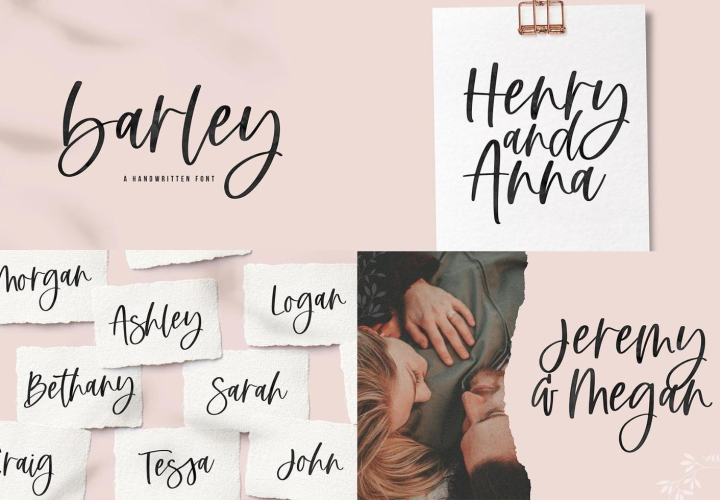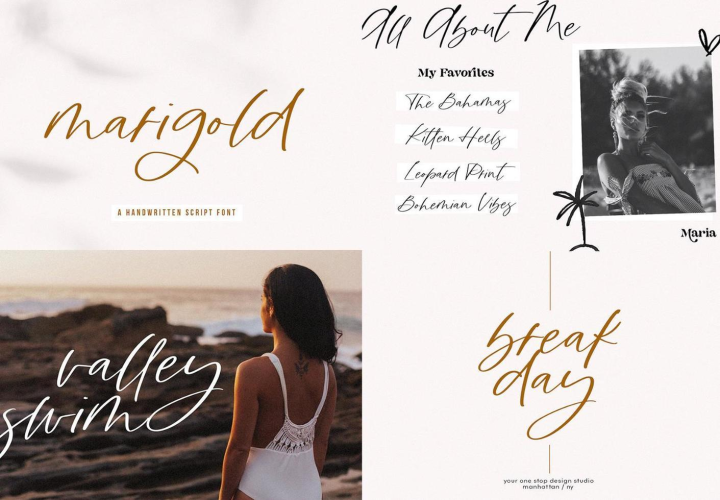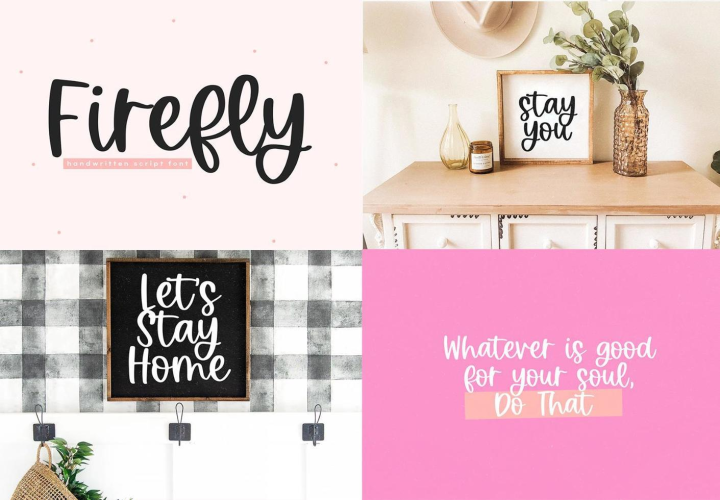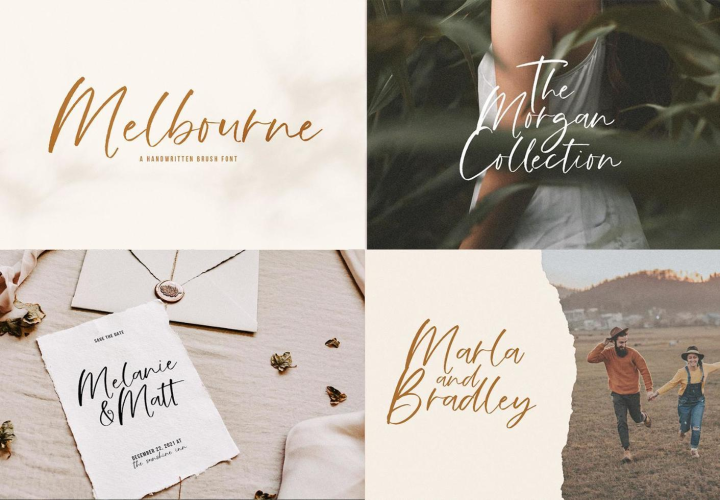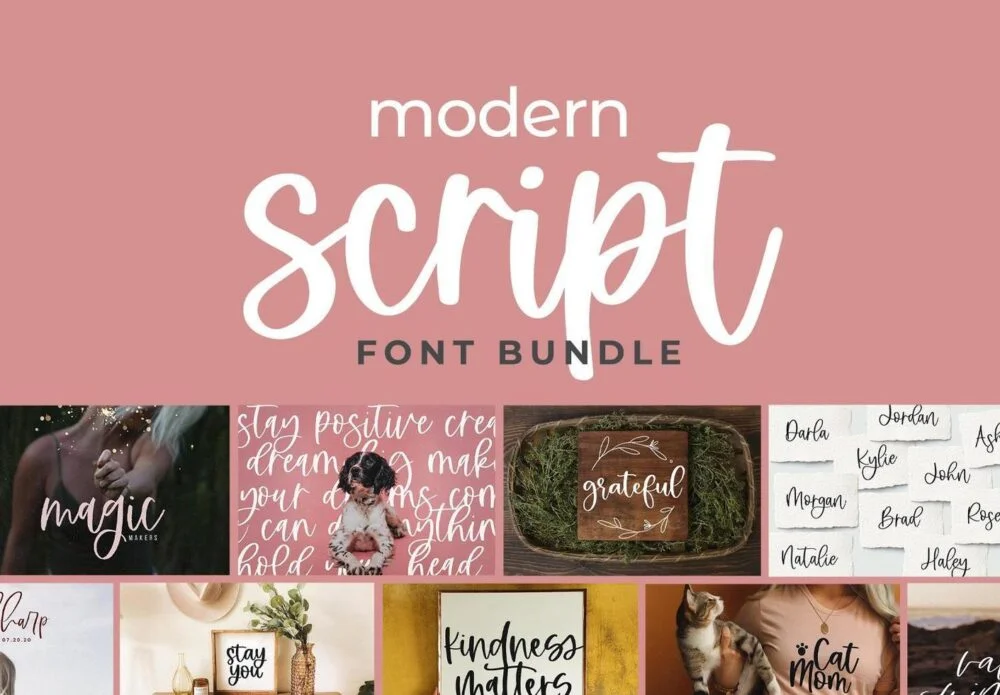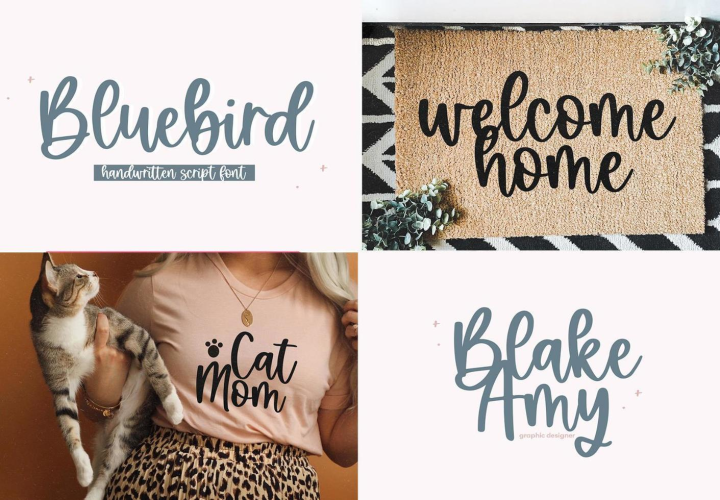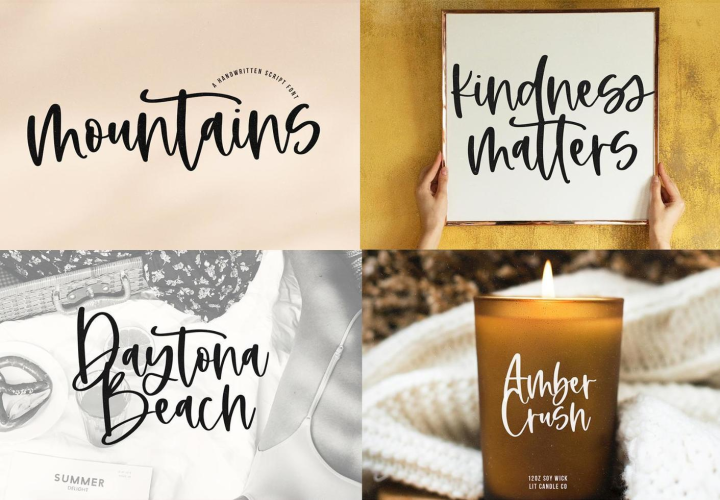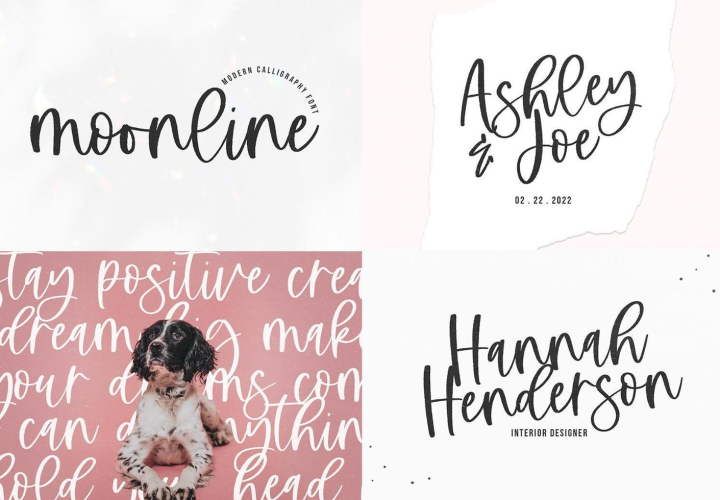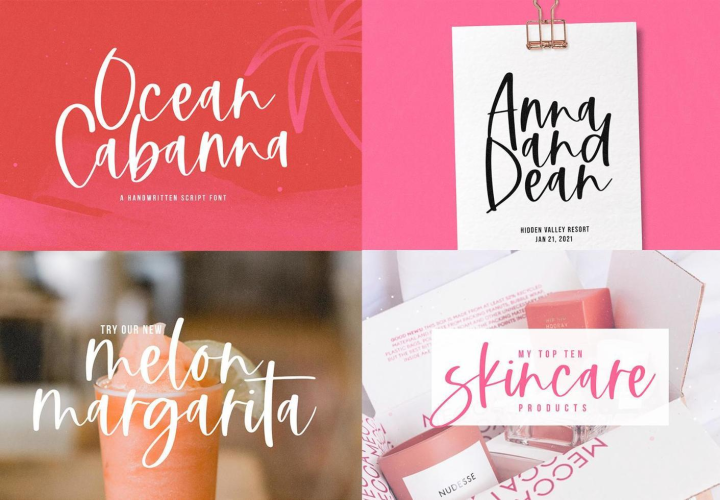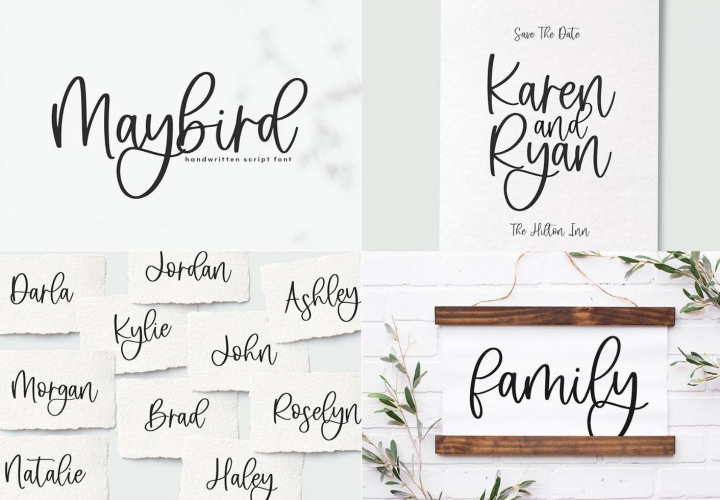
Modern Script Fonts Bundle
Modern Script Fonts Bundle 25 incredible script fonts to your arsenal with this bundle that has a total value of $300. Each font was expertly crafted for an authentic modern calligraphy handwritten style. With these typefaces in your toolbox, you’ll be able to create beautifully handwritten text any time you want.
These fonts are not only gorgeous, but they’re also easy to read. Each font comes in both OTF and TTF format. You’ll get fonts with thin strokes, thick strokes, and brush strokes.
Modern Script Fonts Bundle is extremely helpful for designing wedding invitations, signs, quotes, posters, social media images, branding, product labels, packaging, crafty projects, and more. This bundle gives you all the script fonts you’ll ever need.
Modern Script Fonts Bundle is a Modern Fonts font that brings a professional and versatile look to your projects. Modern Script Fonts Bundle 25 incredible script fonts to your arsenal with this bundle that has a total value of $300.